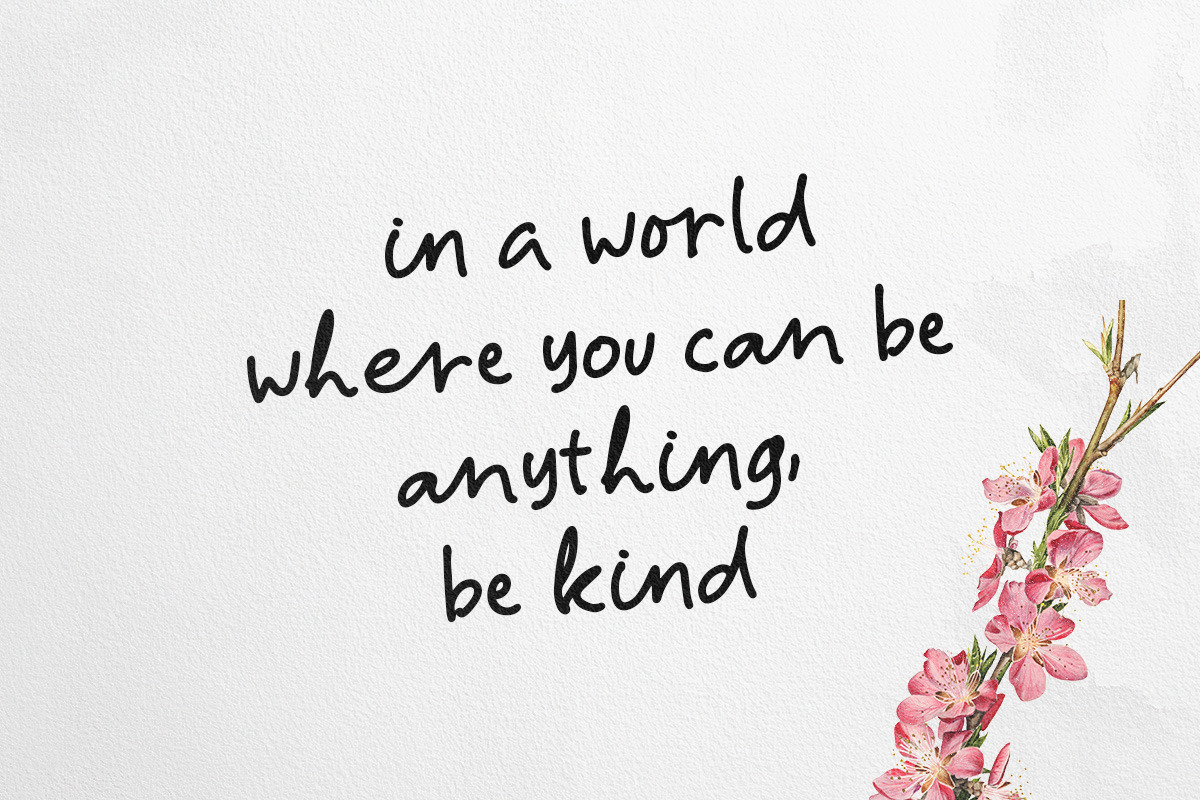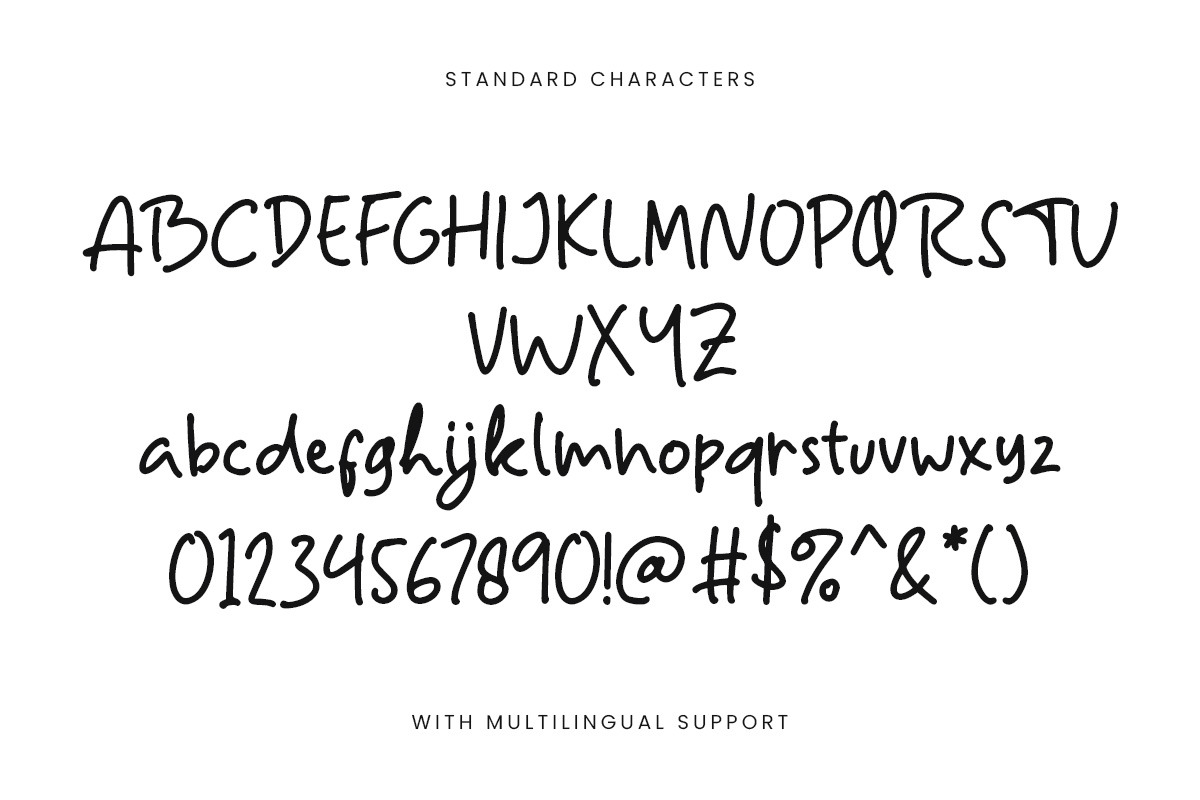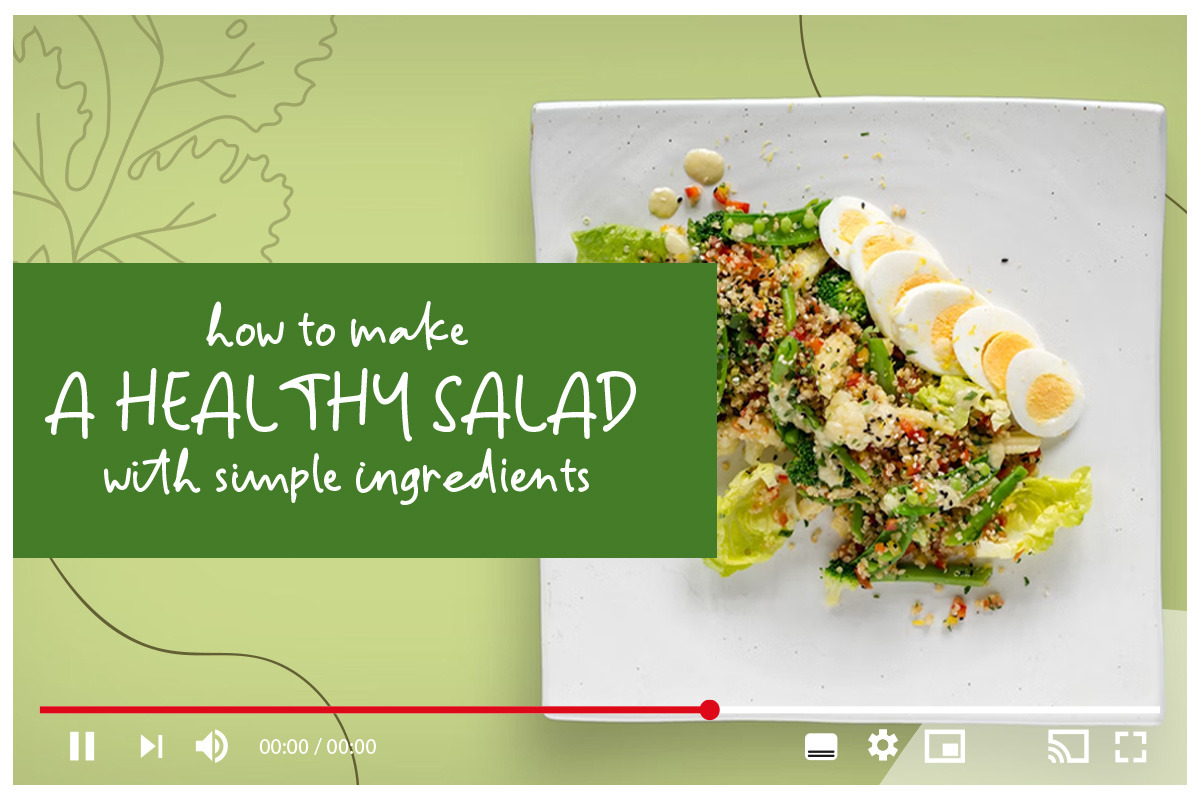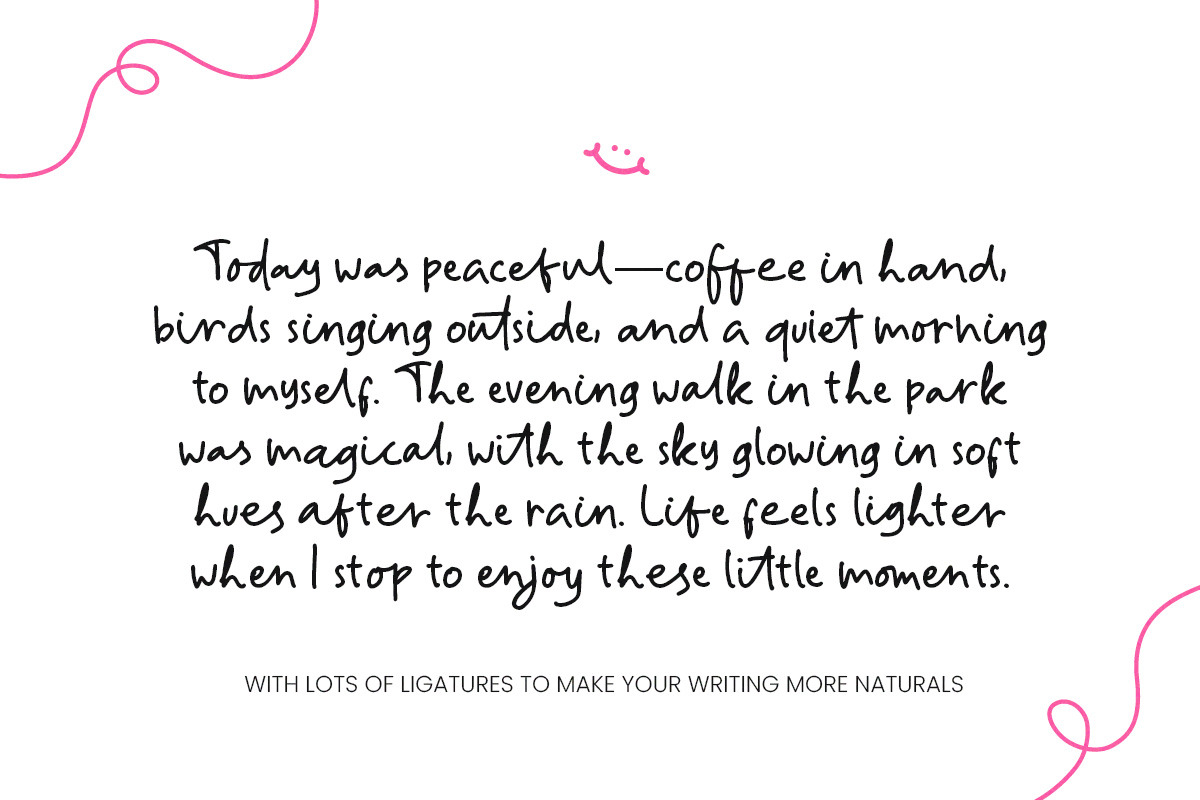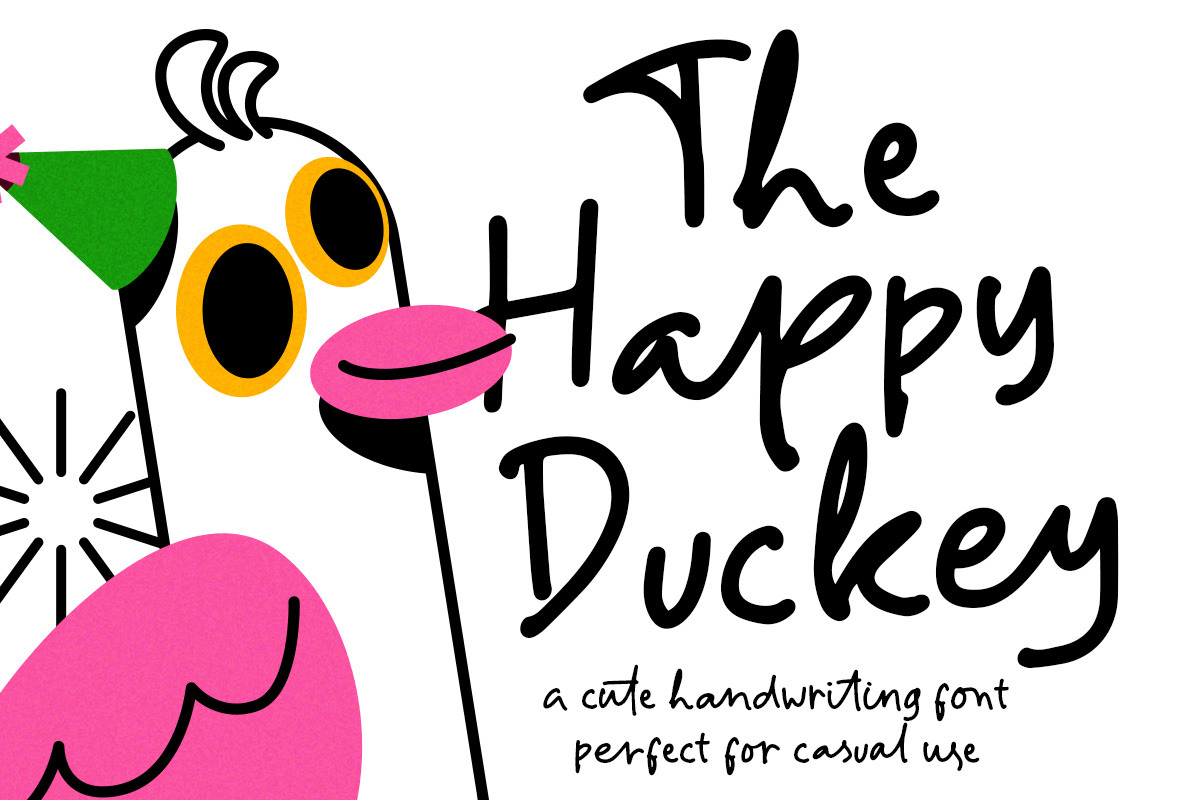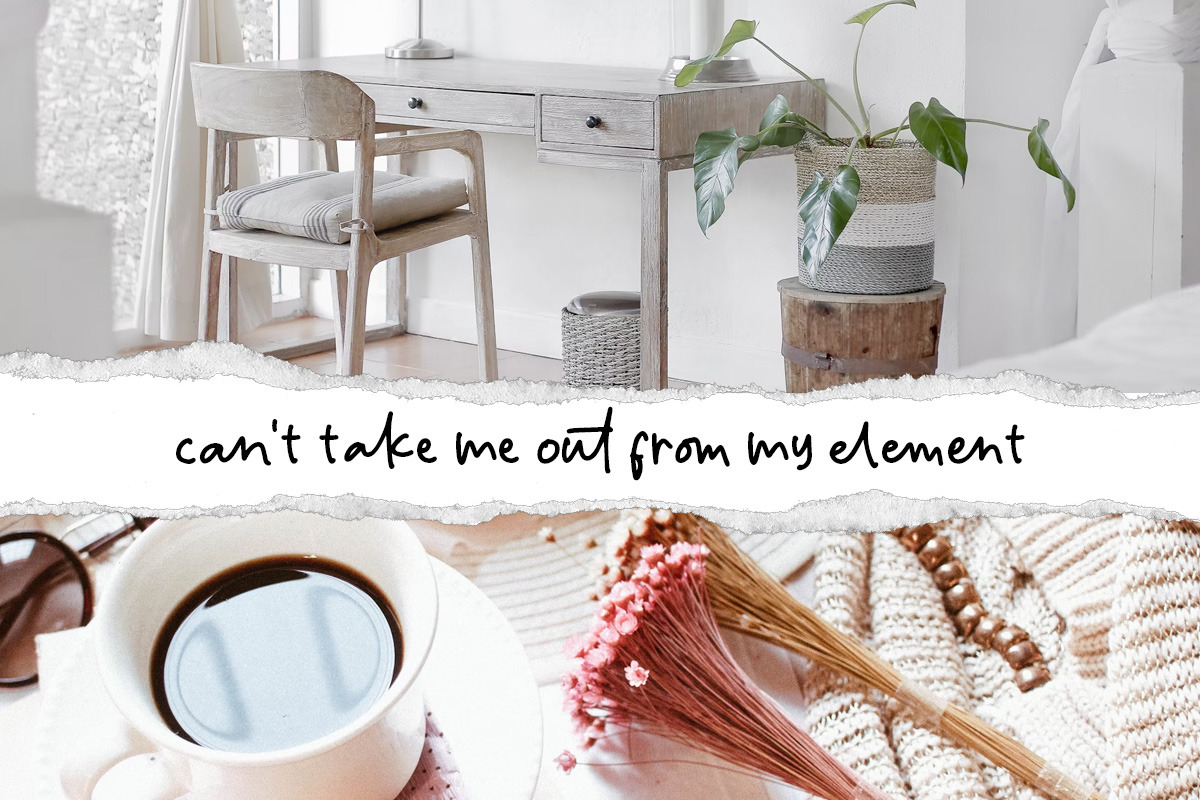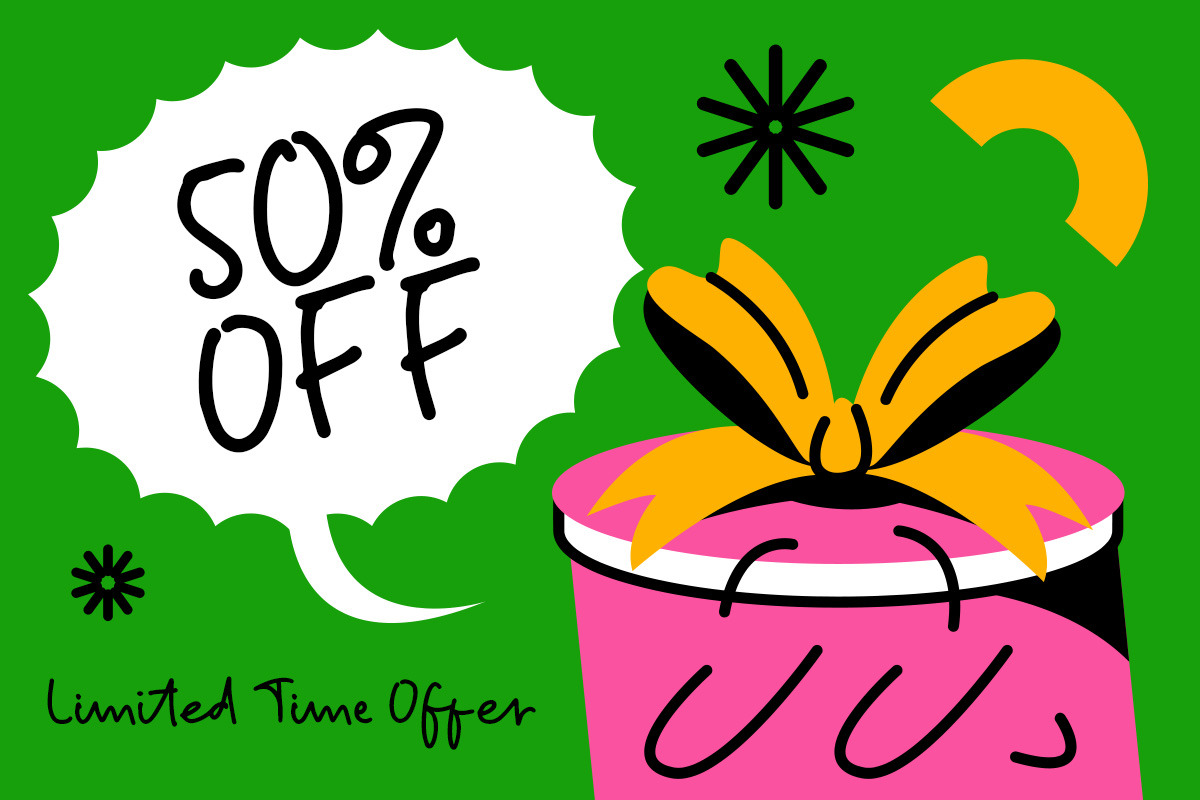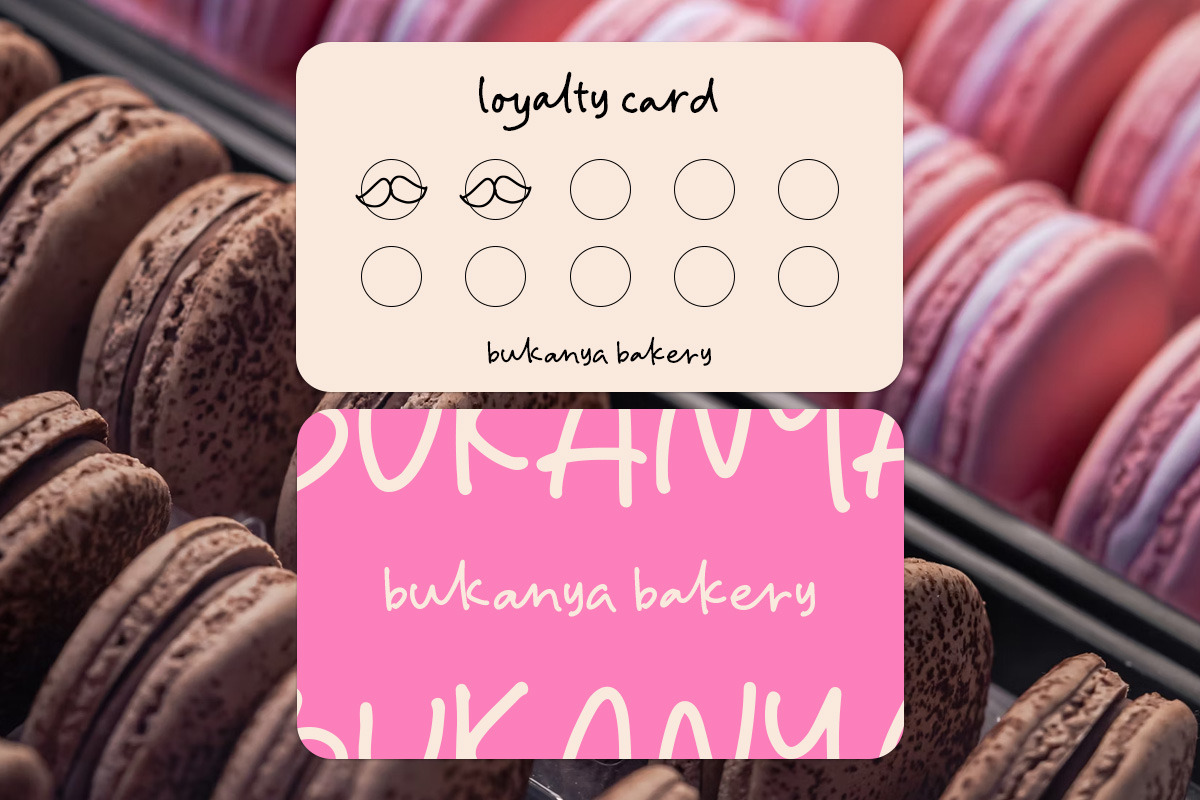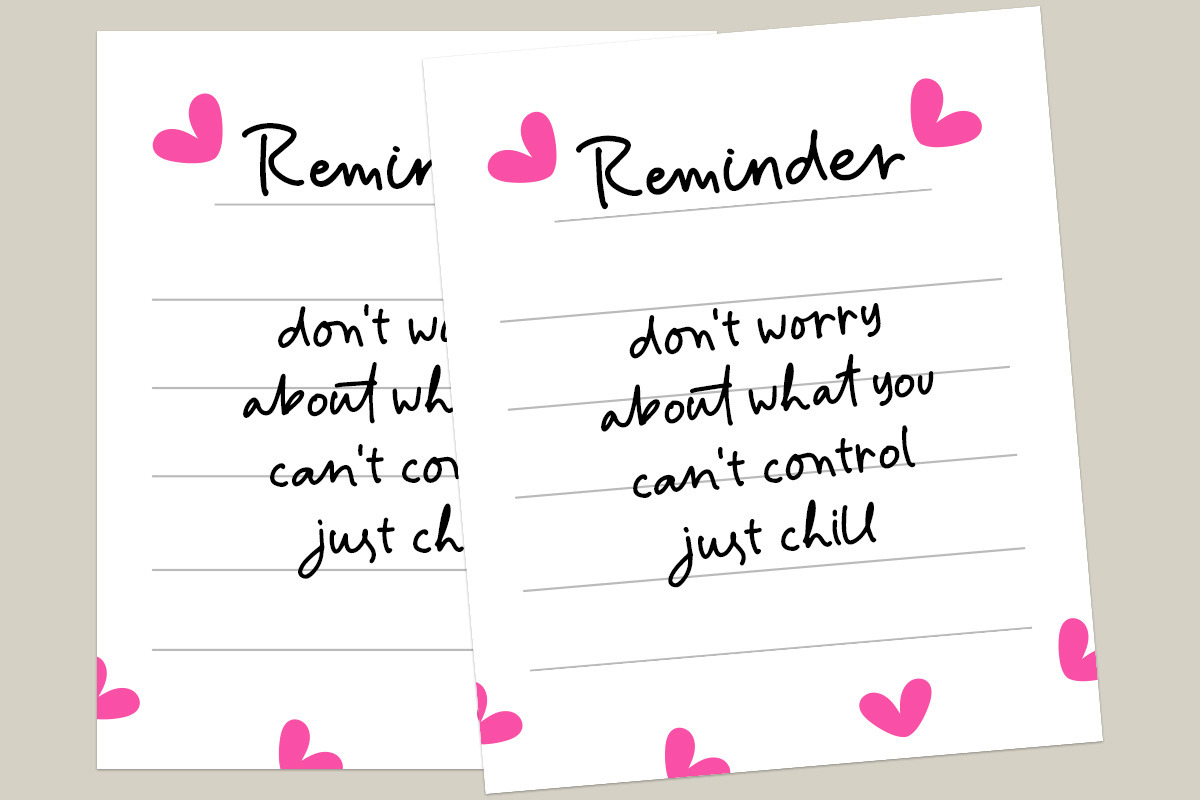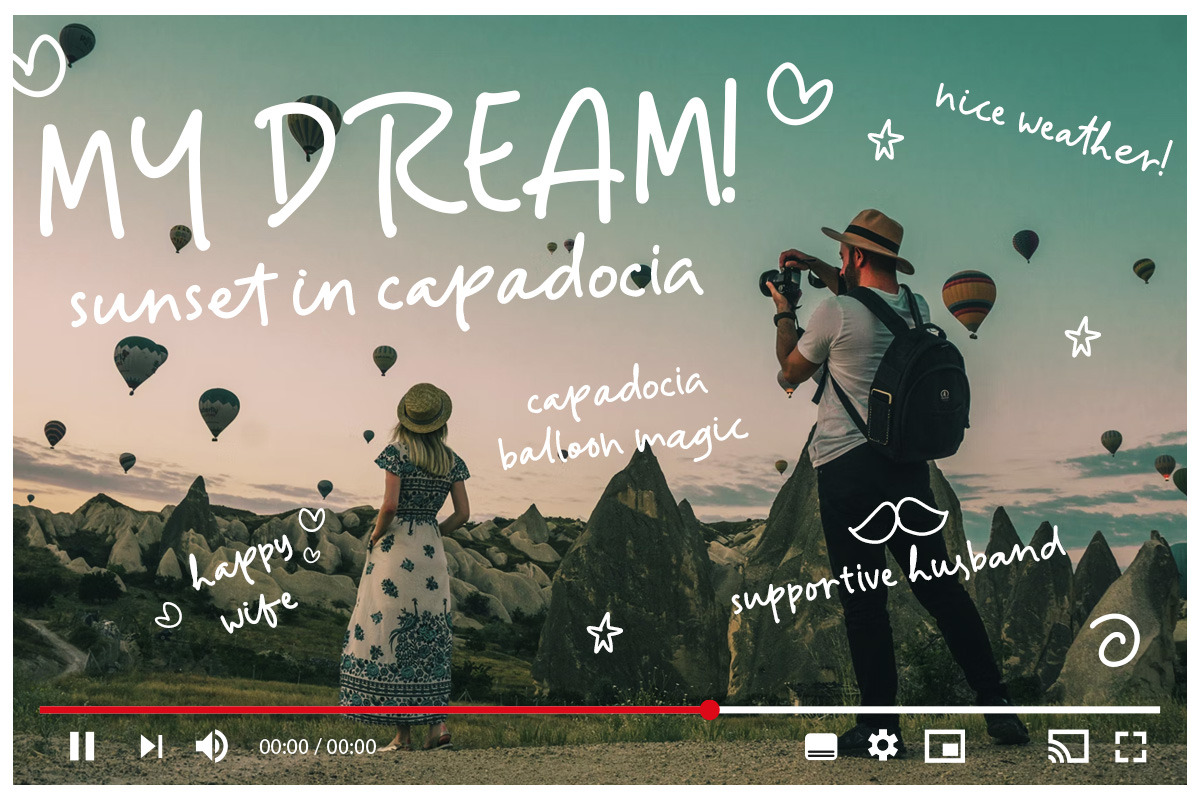
The Happy Duckey Handwritten Font
The Happy Duckey is a playful and charming handwritten font designed to bring joy and personality to your creative projects. With its casual and slightly irregular strokes, this font mimics the natural flow of handwriting, making it perfect for fun, friendly, and lighthearted designs. The rounded edges and smooth curves add warmth, while its quirky character shapes give it a whimsical, cheerful vibe.